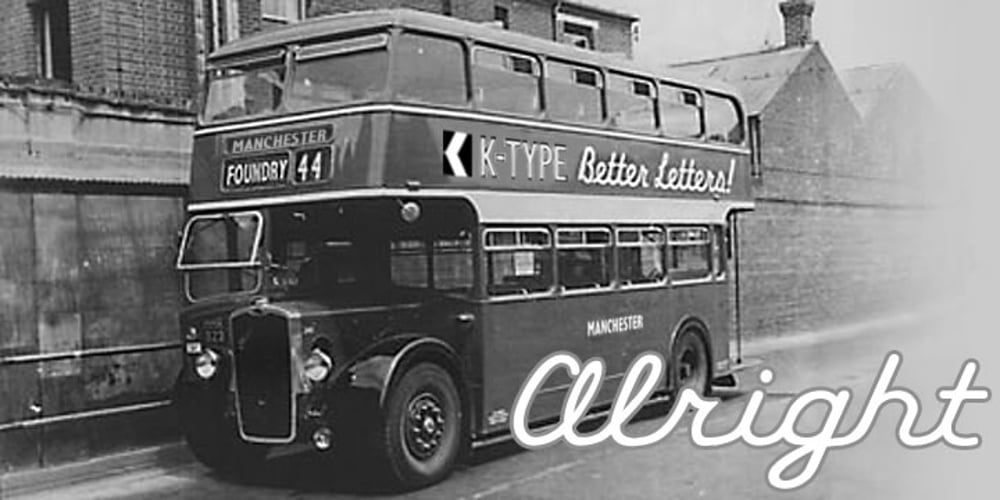
Alright Font Family was designed by published by K-Type. Alright contains 1 styles and family package options. Alright is a cursive font is based on the handwriting alphabets used in education, but with modern short ascenders and descenders. Most of the lowercase letters and half of the capitals join up smartly. A useful teaching alphabet and surprisingly stylish too.